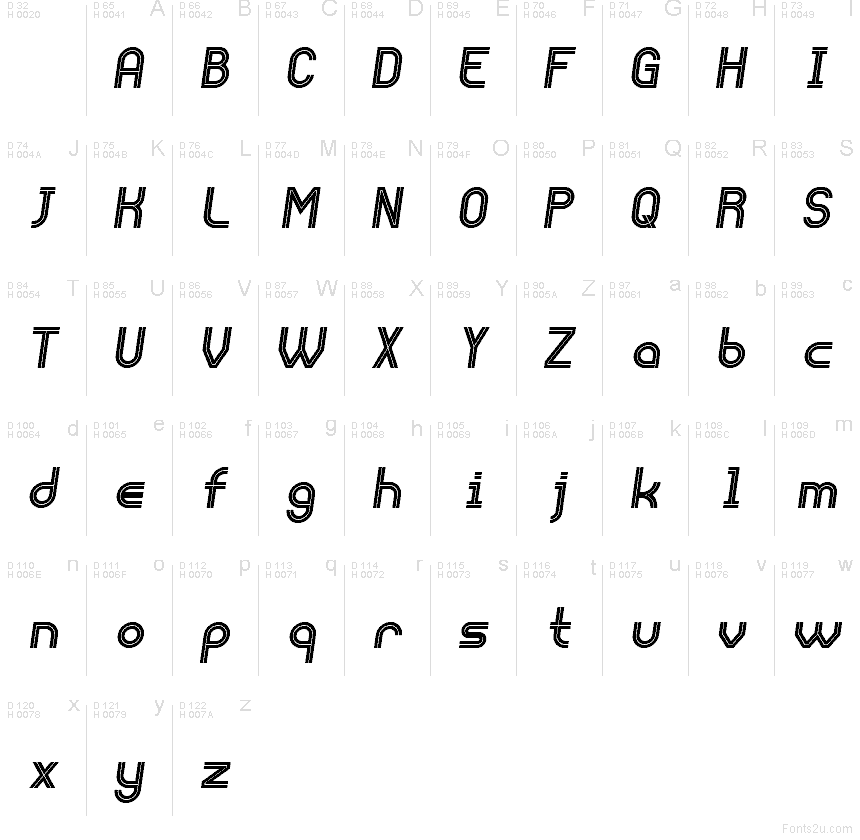
Liquidrom Bold Italic
Liquidrom Bold Italic font by Vladimir Nikolic is a free decorative display typeface with a sleek, tubular outline that looks like neon bent into motion. Its continuous double-line strokes, rounded joints, and forward-leaning posture create a sense of smooth flow, like liquid streaming through glass pipes. The Bold Italic style adds extra punch, so even short words feel energetic and kinetic on the page or screen.
Using Liquidrom Bold Italic, headlines feel wired, futuristic, and slightly playful all at once, making this free font a strong choice for music flyers, club posters, event branding, tech logos, packaging, and bold social media graphics. It shines when set large with generous spacing, where the layered lines can breathe. Pair it with a clean geometric sans for body copy to keep the overall look crisp and readable.